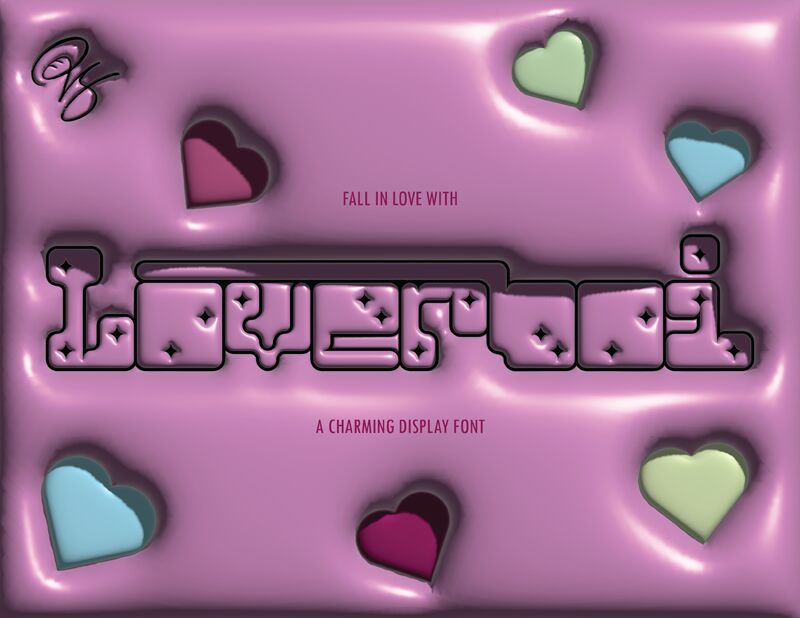
Loverboi font family by Francis Studio and Pendesal Studio is a decorative groovy typeface with a playful aesthetic. The geometric feel of its shapes gives it a candy-like appearance that is both whimsical and charming. It comes in 2 font styles with the addition of much-needed symbols and punctuations that complete the ultimate set.
Your fun retro-prepared typographic projects can now be ready in minutes! Keep it professional but eye-catching by pairing the Loverboi free font with simpler fonts in your designs or run wild with matching patterns, illustrations, and graphics.